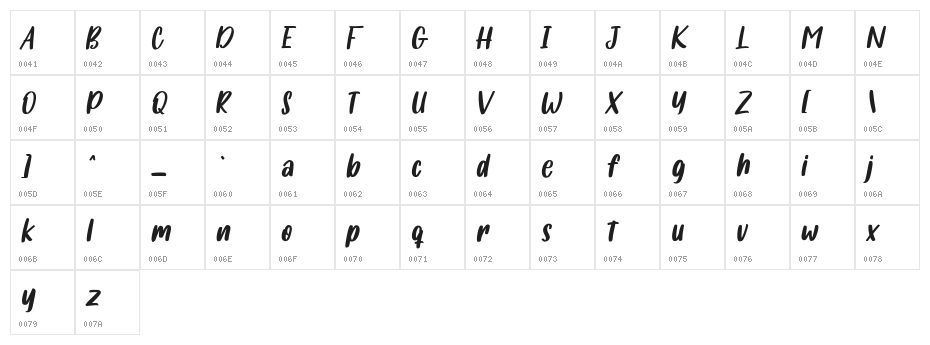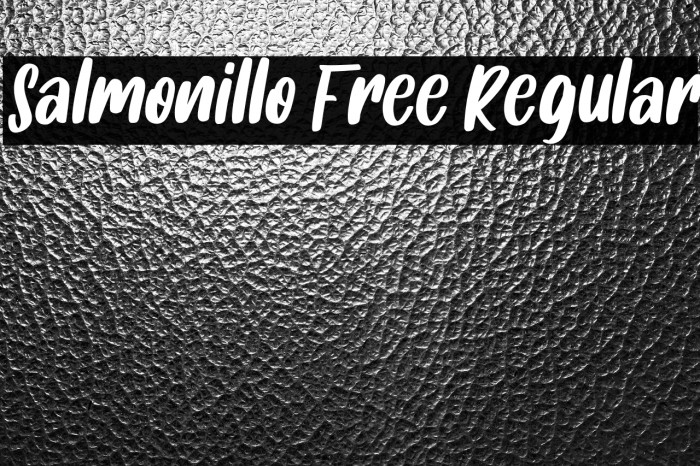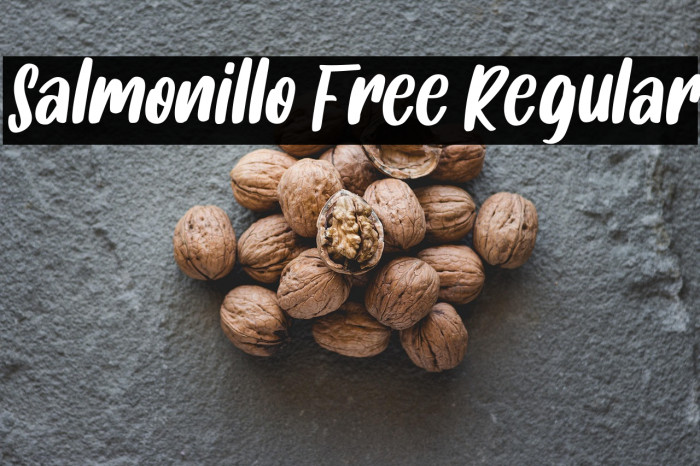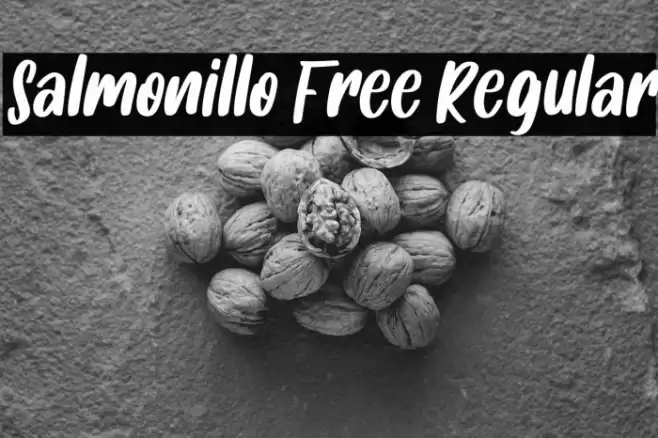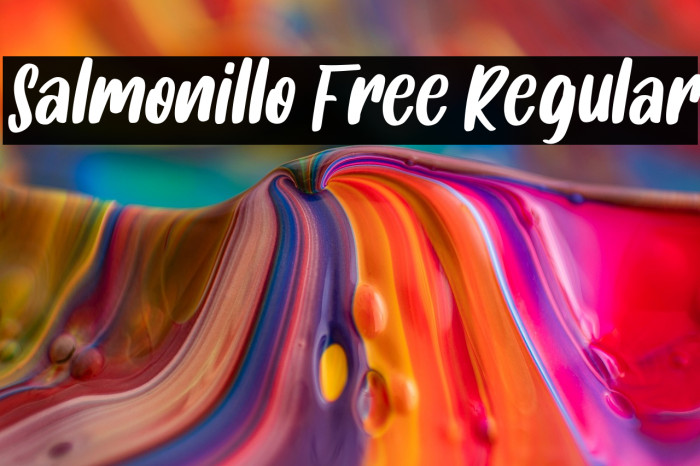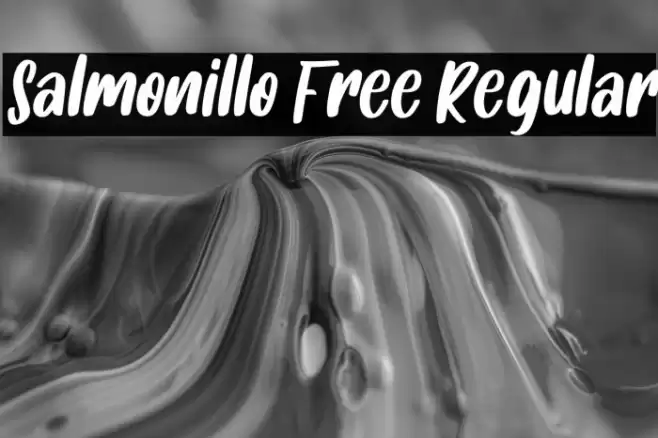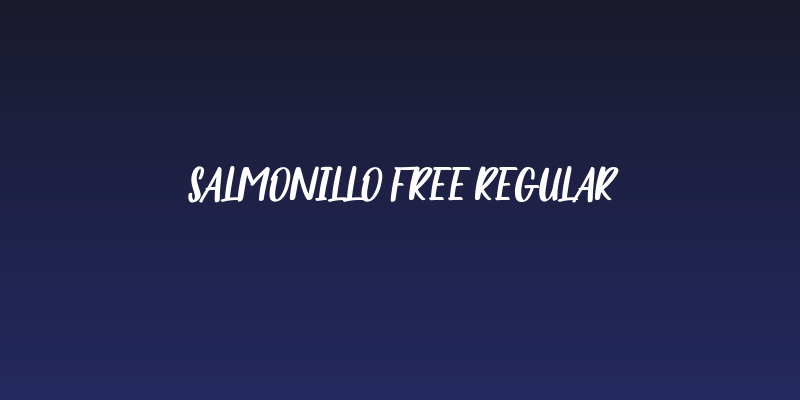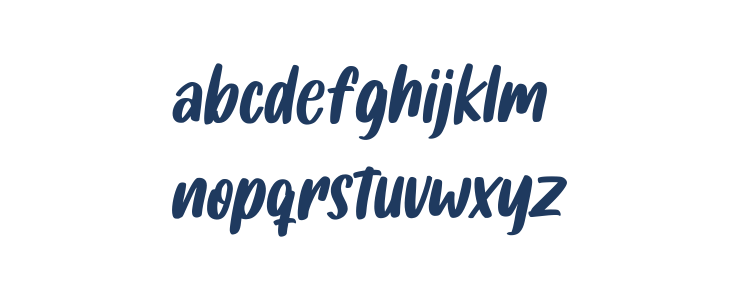
Salmonillo Free Regular Font
Salmonillo Free Regular Description
This font features a bold and expressive script style with a handwritten feel. The characters are slightly slanted, giving a dynamic and energetic appearance. The strokes are thick and consistent, providing a strong visual impact. The uppercase letters are tall and commanding, while the lowercase letters maintain a playful and approachable vibe. The overall design is modern and stylish, making it suitable for a variety of creative projects. The font's unique character shapes and flowing lines add a touch of elegance and personality.
Use CaseLogos, Headlines, Invitations
Proposed ProjectsIdeal for branding, logos, invitations, and social media graphics.